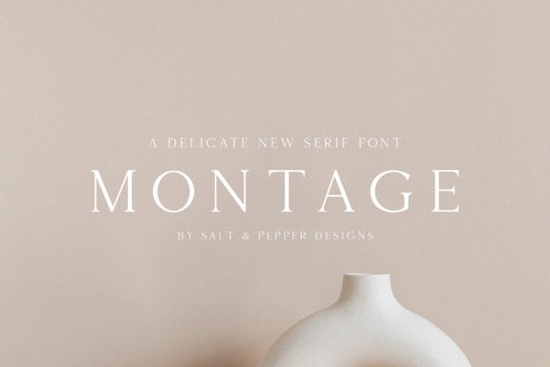
If you need a serif font that feels elegant without being heavy, Montage Font might be exactly what you’re looking for. It’s a thin, authentic serif that adds a subtle luxury to any design. Unlike many decorative serifs that can feel bulky or overly ornate, Montage keeps a light, airy presence while still delivering a refined look.
What makes Montage Font different from other serif fonts?
Montage’s thin letterforms and sharp serifs give it a distinct personality. It’s not a modern sans-serif or a chunky slab it sits somewhere between a classical typeface and a contemporary minimalist choice. The strokes are consistent and crisp, which makes it highly readable even at smaller sizes. That’s rare for a thin serif.
Many thin serifs sacrifice readability for style, but Montage balances both. The uppercase letters feel stately, while the lowercase remains approachable. If you’ve worked with SilkyDusk or Desevon before, you’ll notice Montage is lighter and more delicate perfect for projects where you want text to breathe.
Where can I use Montage Font in my projects?
Montage works especially well for print-on-demand products like greeting cards, wall art, and apparel. Its thin lines translate beautifully onto minimalist t-shirts or notebook covers. For small businesses, it’s ideal for branding materials that need a touch of elegance think logo letters, business cards, or packaging.
- Wedding invitations – The delicate serifs fit romantic, formal themes.
- Social media graphics – Use it for quotes or headers on Instagram and Pinterest.
- Product labels – It reads clearly on small skincare or candle bottles.
- Book covers – Montage brings an upscale feel to fiction or poetry.
Compared to Retro Typewriter, which has a worn, vintage edge, Montage stays clean and contemporary. It’s more versatile in modern design systems.
How does Montage compare to similar serif fonts like SilkyDusk and Desevon?
All three fonts belong to the serif family but serve different moods. SilkyDusk has a softer, almost script-like feel great for romantic layouts. Desevon carries a classic newspaper serif structure with more weight. Montage sits in between: thinner than Desevon, less curved than SilkyDusk, and more structured.
If you’re designing a project that requires both elegance and modern minimalism, Montage is your best bet. For a bold headline with vintage charm, you might combine Montage with Retro Typewriter or use Montage as the accent font. Pairing it with another serif from a similar weight range keeps the design cohesive.
Is Montage Font suitable for print-on-demand products?
Absolutely. Thin serifs work surprisingly well on merchandise because they look understated and premium. Montage holds up in both large and small print sizes. Try it on:
- T-shirts – Single words or short phrases in all caps.
- Mugs – A minimalist quote in lowercase looks elegant.
- Tote bags – Use Montage for your brand name or a simple slogan.
Because the font is thin, avoid using it on very dark backgrounds where the fine lines might get lost but on light or medium tones, it shines.
What’s the best way to pair Montage Font with other typefaces?
Montage works well with a clean sans-serif like Helvetica or a geometric sans. For headings, use Montage; for body text, choose a simple sans to keep the focus on the serif’s details. You can also layer it with a handwritten script for a romantic look.
One smart combination: use Montage for the main title, then a subtle serif like Desevon for subheadings. This creates a hierarchy without clashing. Remember to keep spacing generous thin fonts need breathing room.
Tips for getting the most out of Montage Font
- Track out letters slightly – Add a little letter-spacing for a more open, airy feel.
- Use on white or pastel backgrounds – The thin strokes pop without losing legibility.
- Avoid overloading with effects – Drop shadows or heavy outlines can overwhelm the delicate shapes.
- Test in both uppercase and lowercase – All uppercase can feel rigid; mixed case often feels more natural.